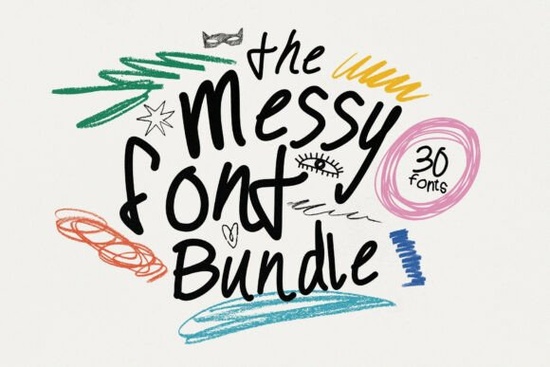
If your designs feel too clean, too digital, or too perfect the Messy Type Bundle Font might be exactly what you need. This collection from Creative Fabrica includes 30 imperfect, handcrafted fonts built to add warmth, texture, and real human energy to any project. Whether you're designing a logo for a small brand, creating social media posts, or working on packaging for handmade products, this bundle gives you a wide range of rough, raw, and expressive typefaces to work with.
What's actually inside the bundle?
The Messy Type Bundle isn't just one style repeated 30 times. It's a mix of different font types, each with its own personality:
- Handwritten scripts flowing, natural letterforms with visible pen strokes
- Brush lettering fonts bold, textured strokes with uneven edges
- Messy marker fonts casual, energetic, great for informal layouts
- Rough serifs and imperfect sans serifs a raw take on classic type styles
- Textured display fonts full of grain, grit, and organic detail
Every font in this collection has realistic inconsistencies uneven baselines, wobbly edges, and quirky letter shapes. These aren't defects. They're what make the fonts feel alive and genuinely handcrafted. Think of the difference between something printed by a machine and something sketched by hand on paper. That's the gap this bundle fills.
Who is this font bundle for?
This collection works well for a surprisingly wide range of creative people:
- Print-on-demand sellers who want designs that stand out on t-shirts, mugs, and tote bags
- Small business owners building a brand identity that feels personal and approachable
- Graphic designers working on posters, editorial layouts, or album artwork
- Crafters and hobbyists making zines, stickers, greeting cards, or art prints
- Social media managers who want posts that don't look like every other template
If you've ever browsed through fonts like Manciety or Delighton Script, you already know the appeal of fonts with character. The Messy Type Bundle takes that idea and multiplies it by thirty.
How do imperfect fonts improve design work?
There's a reason so many indie brands and creative studios lean into rough, hand-drawn typography. Clean, geometric fonts can feel cold and corporate. A font with texture and irregularity communicates something different authenticity, effort, personality.
Here's where messy fonts make a real difference:
- Branding A handcrafted font signals that a brand cares about craft, not just polish. Works especially well for coffee shops, bakeries, skincare lines, and artisan goods.
- Packaging design Products on shelves need to grab attention fast. Textured, imperfect type creates visual interest that smooth fonts can't match.
- Event materials Invitations, posters, and flyers for markets, gigs, and pop-ups benefit from a casual, handmade vibe.
- Social media graphics Posts with rough, expressive typography tend to feel more personal and less like ads. That helps with engagement.
Fonts like Phatin Angler show how a script style with natural imperfections can add instant warmth to a layout. The Messy Type Bundle gives you dozens of options in that direction.
How does it compare to buying fonts individually?
If you've already explored collections like The Skinny Font, you know that a single well-designed typeface can carry an entire project. Now imagine having thirty of them, each with a different mood and texture, ready to use whenever inspiration strikes.
What types of projects work best with messy fonts?
Messy, imperfect fonts aren't the right fit for every situation. They work best when you want your design to feel human, creative, and approachable. Here are a few project types where they really shine:
- Album and book covers
- Handmade product labels
- Zine and magazine layouts
- Art prints and posters
- Apparel graphics and merch
- Wedding and event stationery with a relaxed feel
They're less suited for legal documents, financial reports, or anything requiring strict readability at small sizes. But for creative work? They're hard to beat.